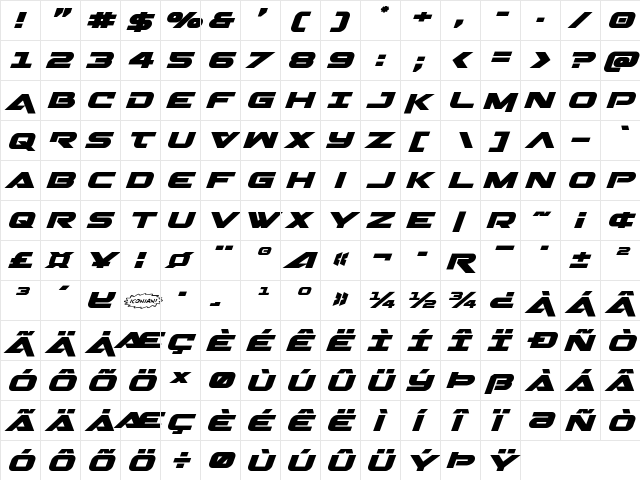
Gemina Expanded Italic Expanded Italic
Design Context for Gemina Expanded Italic Typeface
Gemina Expanded Italic is a composed and adaptable typeface that performs quietly and consistently across a wide range of design contexts. The slanted form adds forward momentum and visual energy.
Pro Tip: Try Gemina Expanded Italic for annotation and caption copy alongside an upright companion — the contrast in angle creates a dynamic but ordered typographic system.